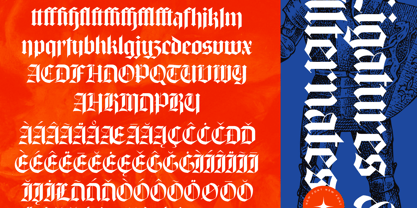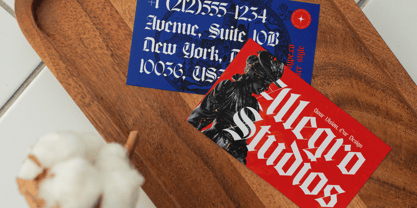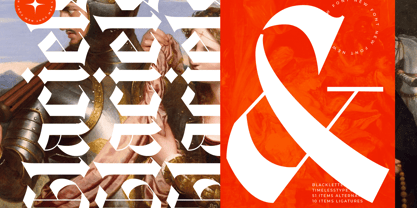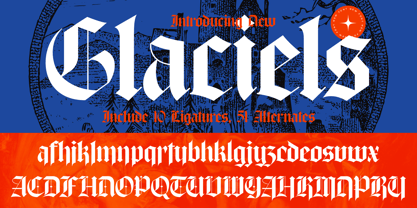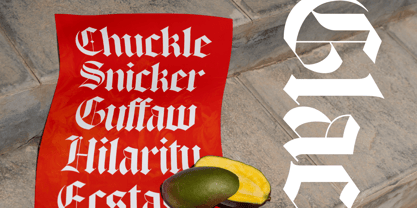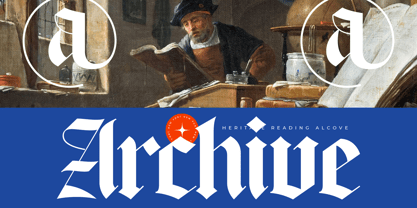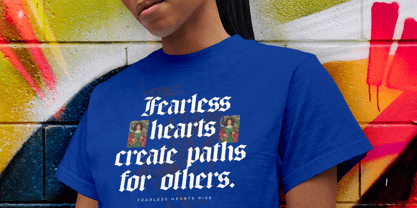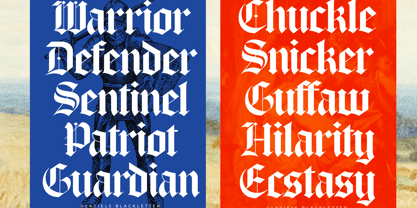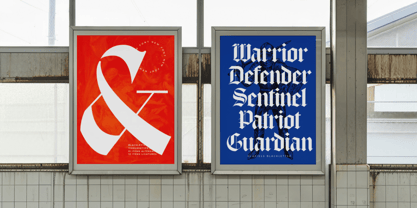
Glaciels
The Glaciels Font Family was designed by Heru Utama Putra and published by Timelesstype Studio. Glaciels contains 2 styles and family package options. More about this family
Glaciels - New Blackletter Font , from Timelesstype, Suitable for any projects such as: logos, branding projects, homeware designs, product packaging, mugs, quotes, posters, shopping bags, t-shirts, book covers, name card, invitation cards, greeting cards, label, photography, watermark, special events, and all your other luxury and beautiful projects that need a Luxury Serif taste.